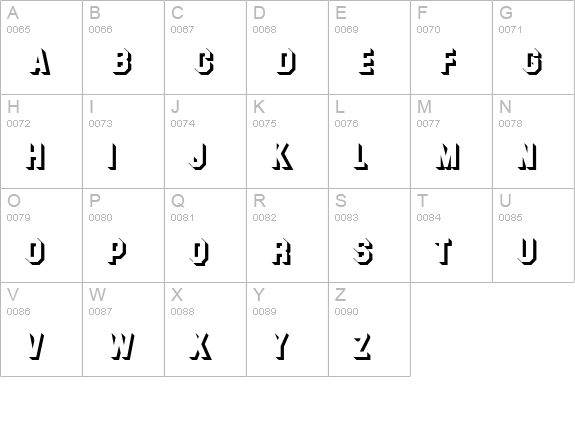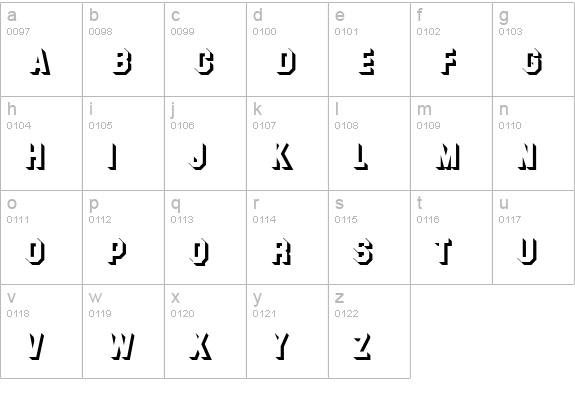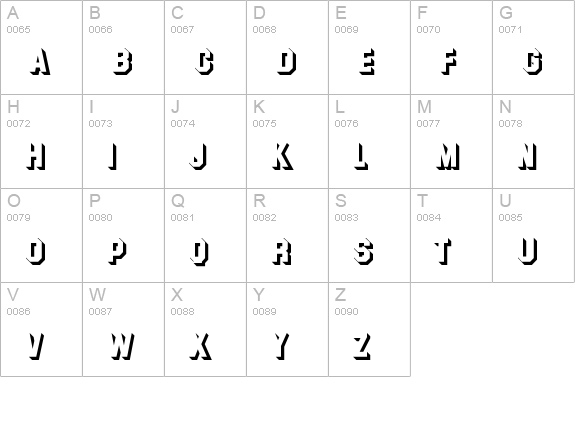
Summit-Shadow-Regular is the standard, neutral variant in the Summit typeface family \xE2\x80\x94 well suited to general body text, paragraphs, and standard typographic work.
Summit Shadow Regular is a striking and versatile font that combines modern elegance with a touch of classic sophistication. Its clean lines and subtle shadow effect give it a unique and eye-catching appearance that is perfect for a wide range of design projects. Whether you are creating a sleek logo, elegant invitation, or stylish branding materials, Summit Shadow Regular is sure to make a lasting impression. And the best part? Summit Shadow Regular is completely free to download at FontsMarket.com. With just a few clicks, you can add this stunning font to your collection and start using it in your projects right away. Don't miss out on this fantastic opportunity to elevate your designs with the beautiful Summit Shadow Regular font.